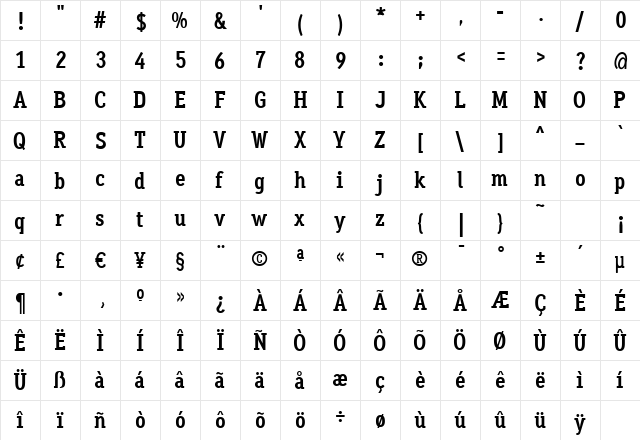
Aaux OfficeBold Regular Font Preview
Aaux OfficeBold Regular
Design Context for Aaux OfficeBold Typeface
Aaux OfficeBold offers clean, dependable letterforms without strong stylistic allegiance, making it a practical choice for designers who need flexibility. Its bold stroke weight gives it real presence on the page.